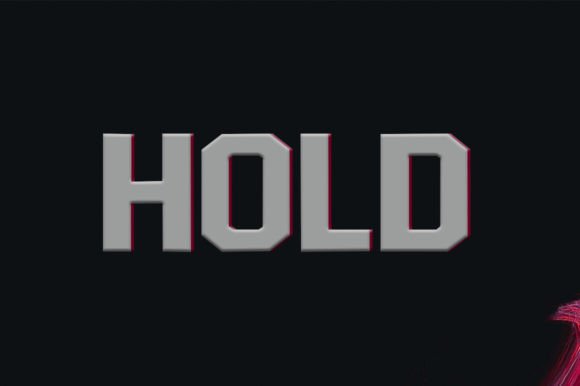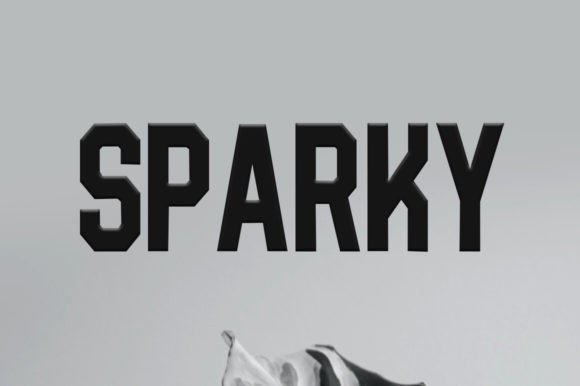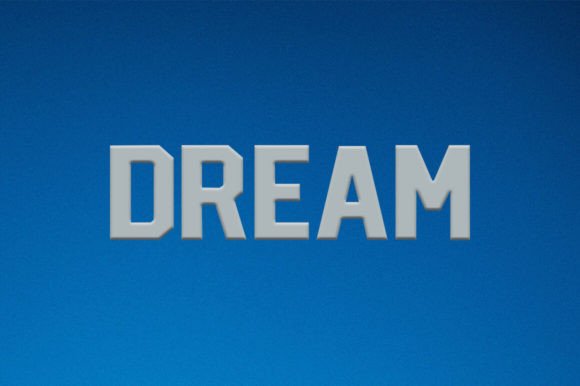
Hold Font
About Hold Font
HOLD font adapts wonderfully in contexts such as designing labels for perfumes, cosmetics, magazine covers, posters, manifests, flyers, social posts, and fashion.